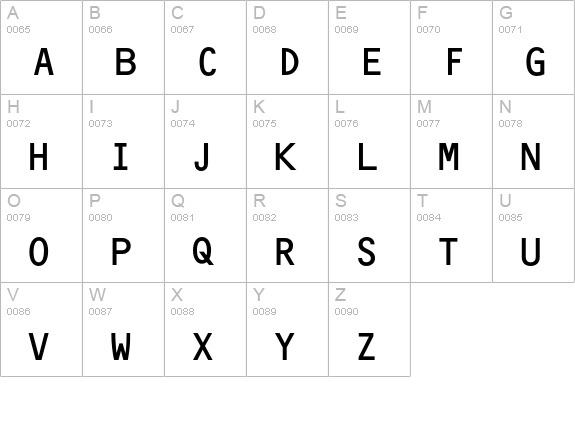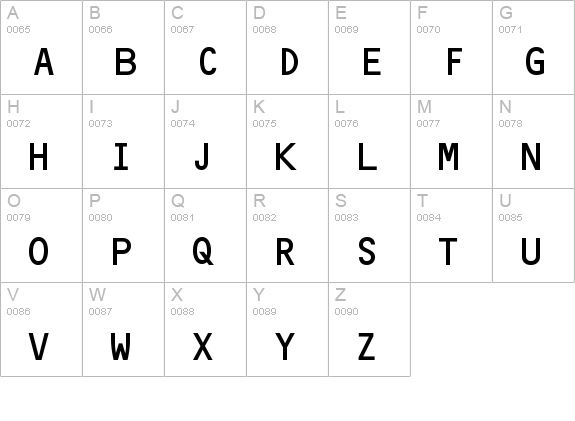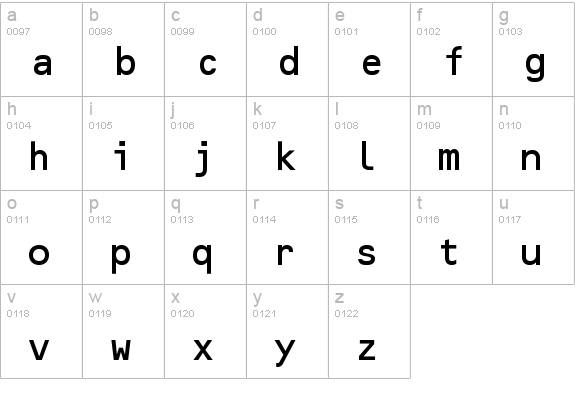
OCRBEF-Regular is the standard, neutral variant in the OCRBEF typeface family \xE2\x80\x94 well suited to general body text, paragraphs, and standard typographic work.
OCRBEF-Regular font is a modern and sleek typeface that is perfect for a wide range of design projects. With its clean lines and balanced proportions, this font exudes a professional and sophisticated look. Whether you are creating documents, presentations, or branding materials, OCRBEF-Regular will add a touch of elegance to your work. What sets OCRBEF-Regular apart is that it is available for free download at FontsMarket.com, making it accessible to designers and creators of all levels. This means you can easily incorporate this stylish font into your projects without any cost barriers. Don't miss out on the opportunity to enhance your designs with OCRBEF-Regular and make a lasting impression on your audience.